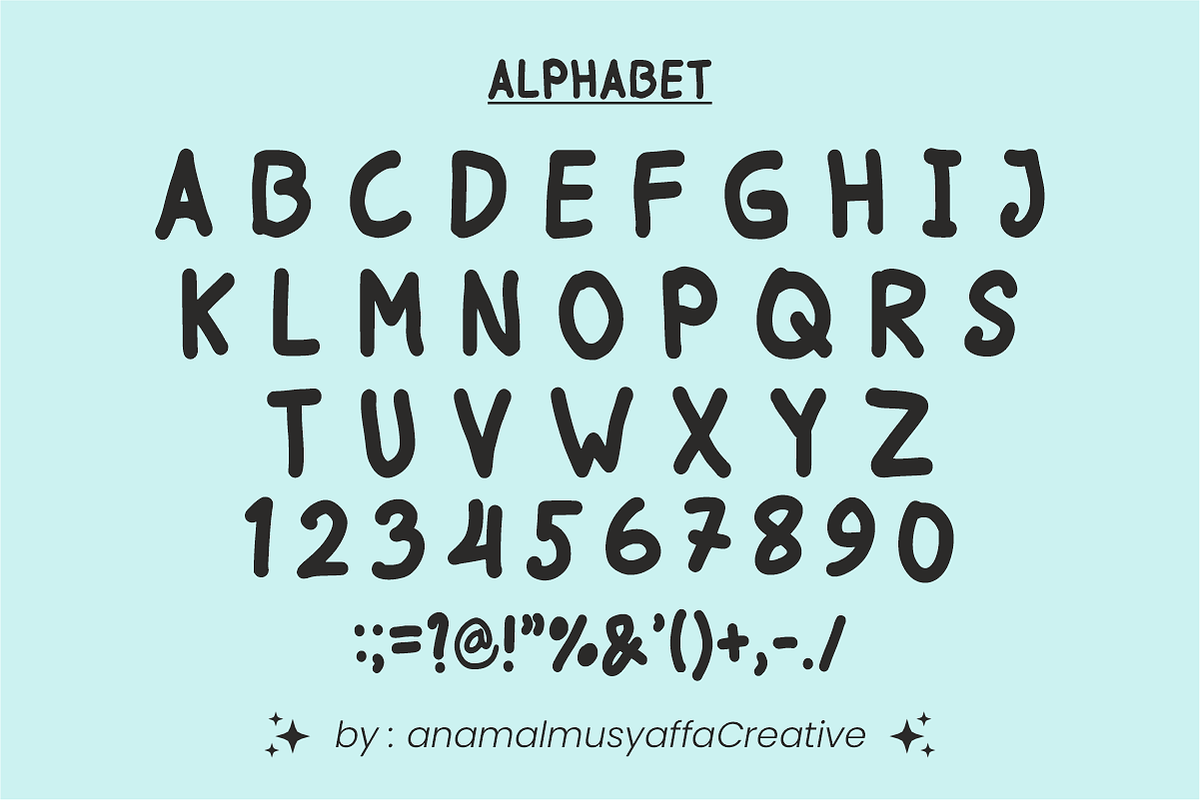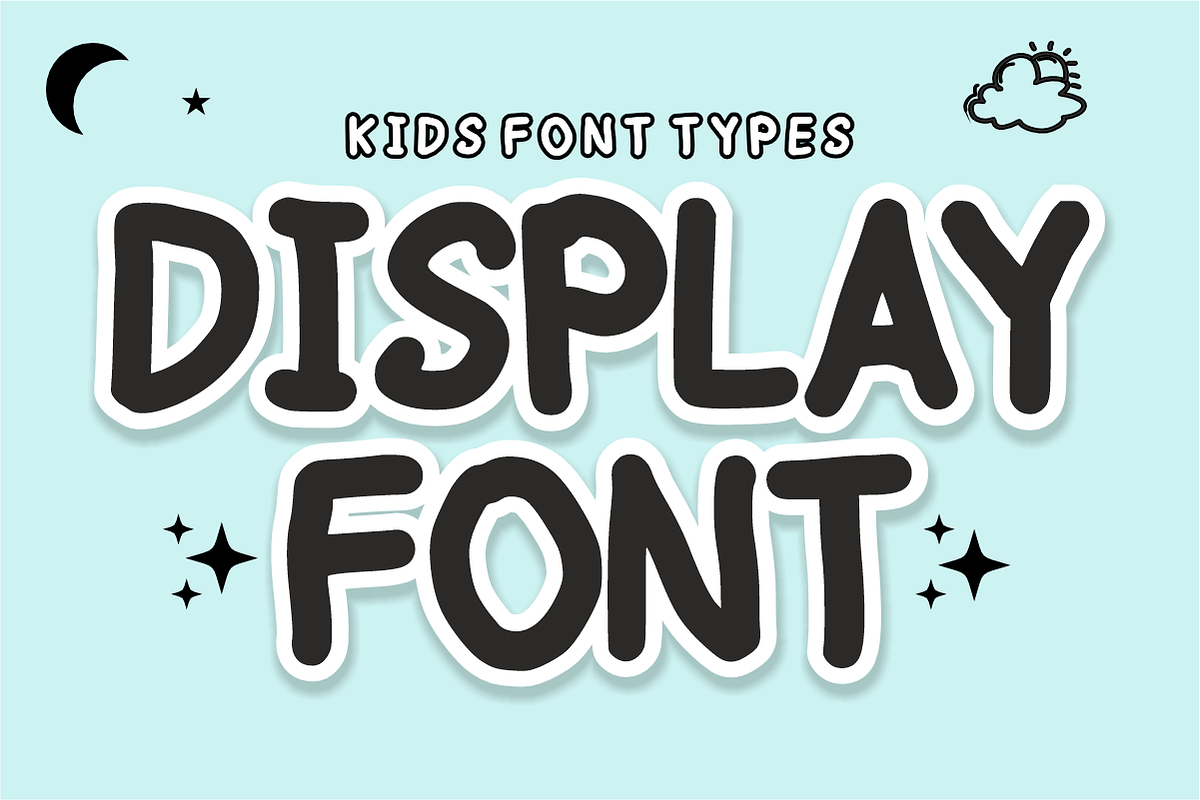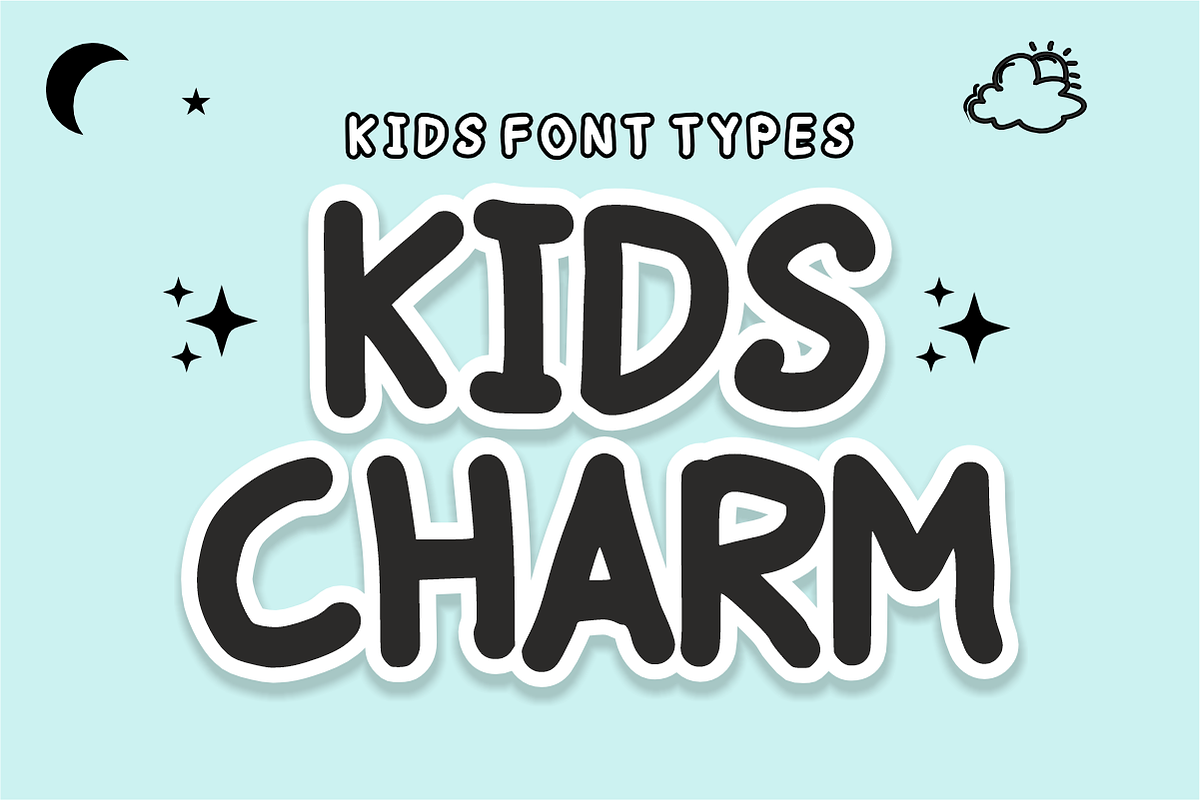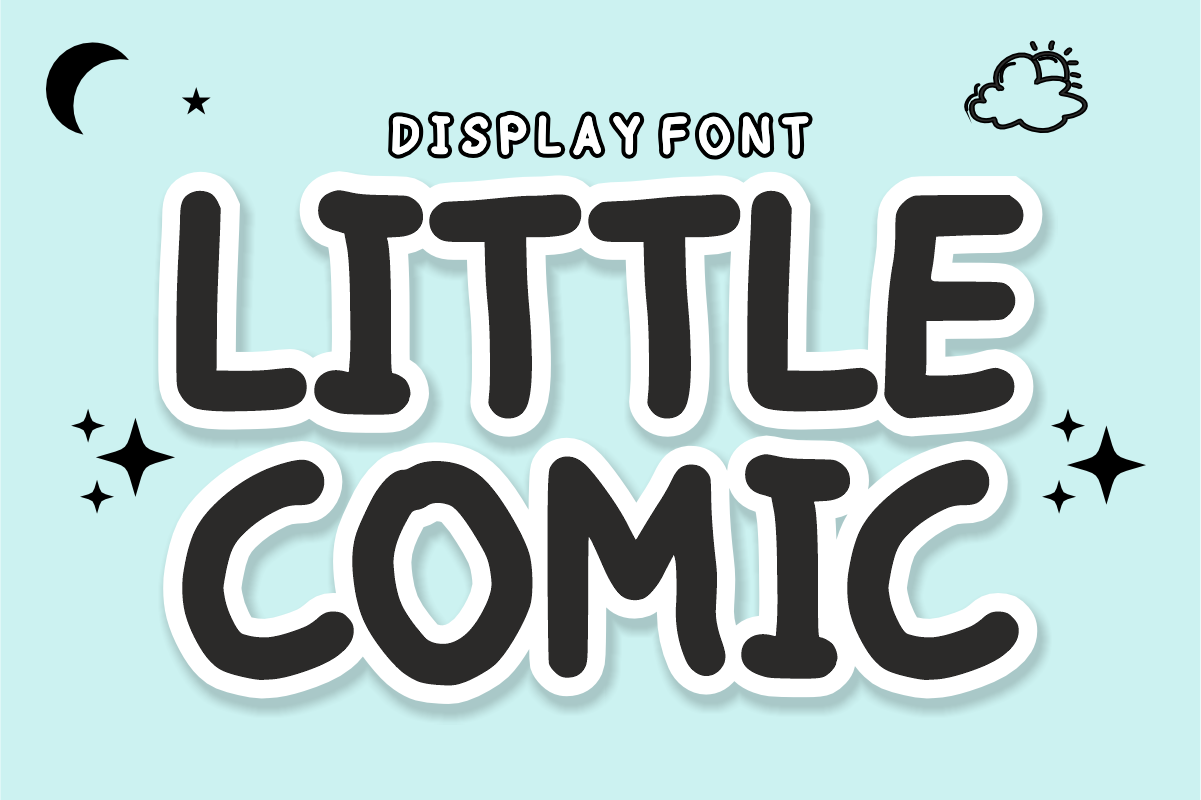
Little Comic - Cartoon Display Font
Little Comic - Playful Cartoon Display Font
Bring a cheerful burst of fun and youthful energy to your layouts with Little Comic! Designed as the ultimate playful display typeface, it features thick, softly rounded, hand-drawn letterforms that give your headlines an instant, friendly cartoon aesthetic.
Perfect for children's designs, custom merchandise, and trend-focused crafting, Little Comic masterfully pairs a lighthearted comic look with outstanding legibility. It is highly versatile, expressive, and fully optimized for seamless performance across premium digital cutting tools and professional print workflows.
All-Caps Character Set (Chunky, happy cartoon uppercase letters)
Numbers & Basic Punctuation (Essential, simple symbols included)
Children’s Books, Comic Strips, & Playful Storybook Headlines 📚
Kids' Product Packaging, Toy Labels, & Birthday Party Decor 🎈
Custom Stickers, Social Media Graphics, & Fun Logos 📱
T-shirt Designs, Youth Apparel, & Creative Merchandise 👕